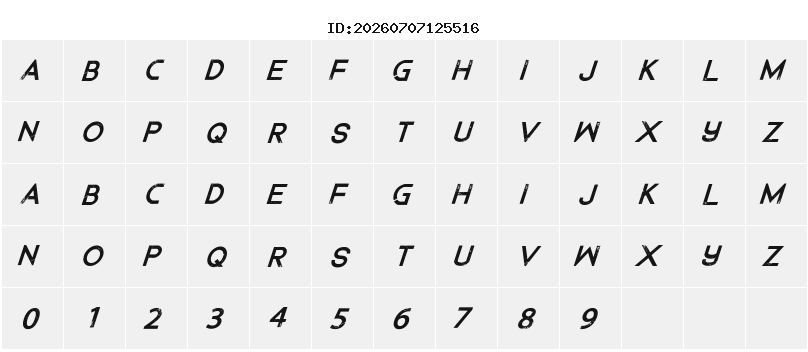
• Font Name: Dedecus Putro
• Full Font Name: Dedecus Putro Italic
• Designer: Chris Vile
• Manufacturer: Fontillery
• Description: Dedecus Putro Italic is a font by Fontillery, designed by Chris Vile in 2014.
Dedecus Putro.ttf is a modern, elegant sans-serif font designed for ultimate readability and visual harmony. Perfect for branding, headlines, web design, and print materials.